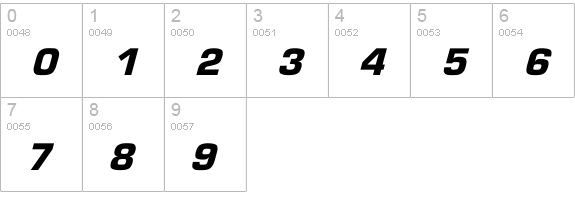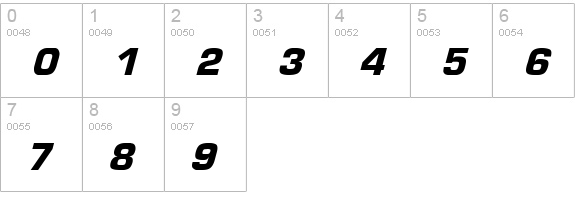
Eurostile-Black Italic is a maximum-weight, dramatic, italic variant in the Eurostile typeface family \xE2\x80\x94 well suited to maximum-impact headlines, posters, and packaging.
Eurostile-Black Italic is a bold and modern font that exudes sophistication and professionalism. Its sleek design and slanted italic style make it perfect for adding a touch of elegance to any project. The strong, geometric shapes of this typeface give it a distinct edge, making it a standout choice for headlines, titles, and branding materials. What makes Eurostile-Black Italic even more appealing is that it is available for free download at FontsMarket.com. This means you can easily access this stylish font without any cost, making it a valuable addition to your font library. Whether you're designing a website, creating a poster, or crafting a logo, Eurostile-Black Italic is sure to make a bold statement and elevate your design projects to the next level.